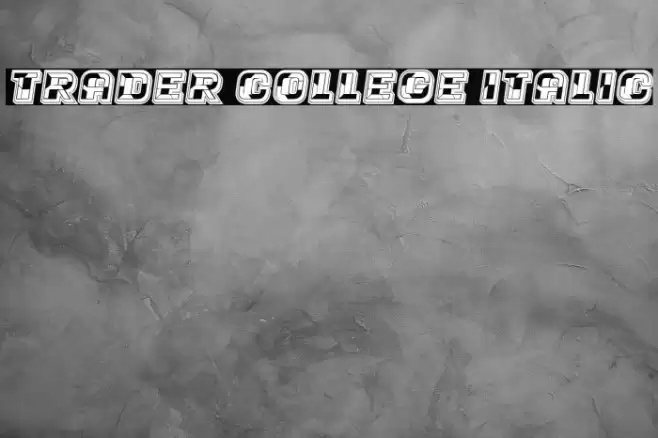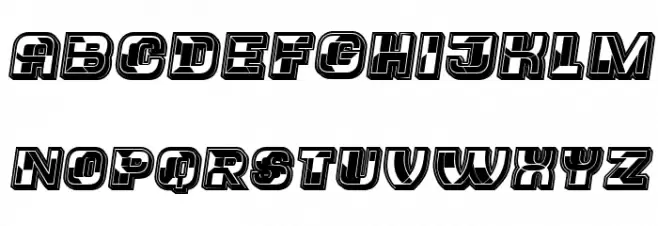
Trader College Italic Font
Trader College Italic Description
This font features a bold, italicized style with a distinct college or varsity aesthetic. The letters are uppercase and exhibit a blocky, geometric form with a three-dimensional effect created by shadowing and layering. The strokes are thick and consistent, contributing to a strong visual impact. The characters are tightly spaced, enhancing the boldness and making it suitable for attention-grabbing designs. Its decorative nature and sporty vibe make it ideal for projects that require a dynamic and energetic feel.
Bold, italicized font with a college varsity style and 3D effect from Uncategorized fonts.
- Proposed Projects: Ideal for sports team logos, college event posters, merchandise designs, and dynamic headlines.
- Character Spacing: Tight
- Use Case: Logos, Headlines